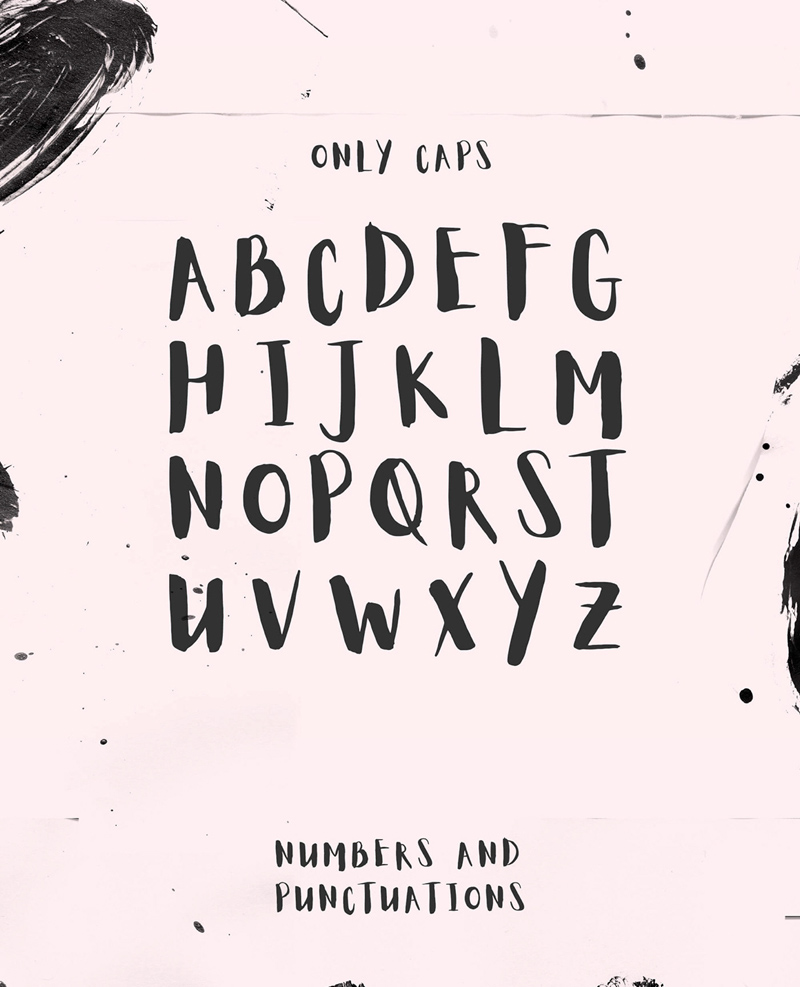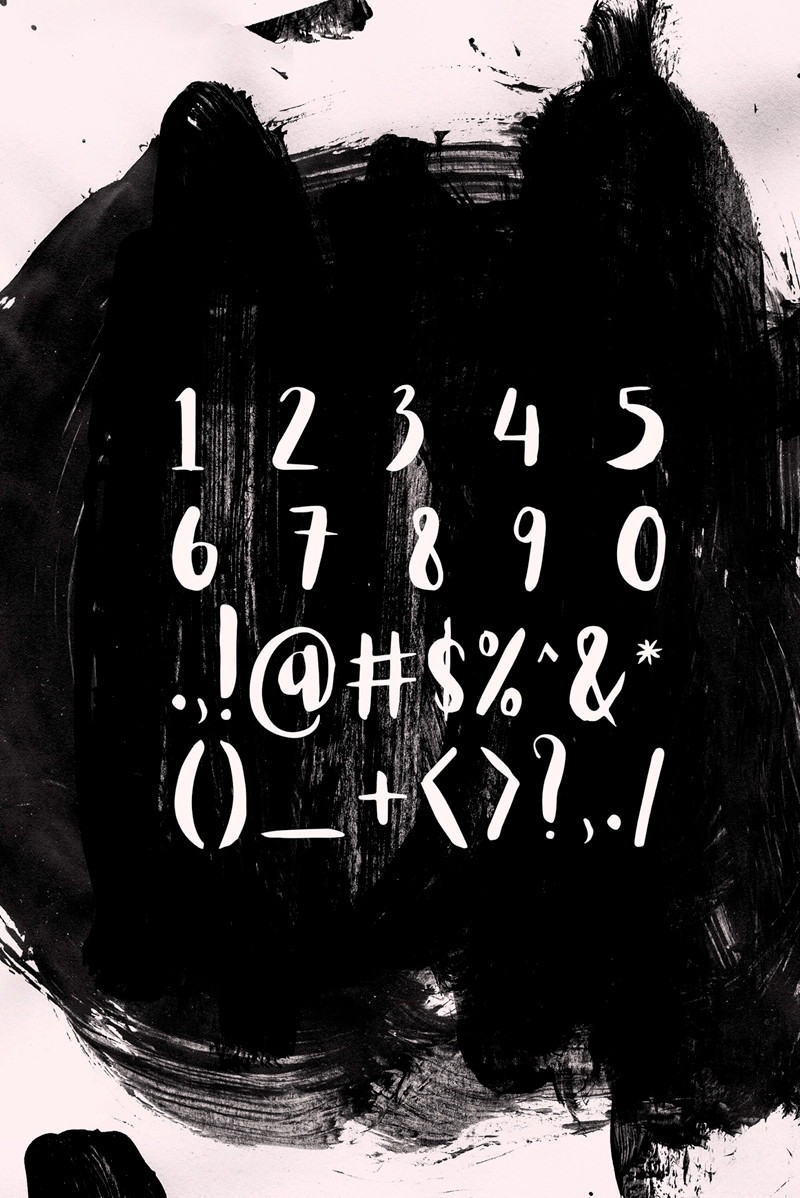
Aloja Font – Free Handwritten Typeface
This nice Aloja font is a handwritten typeface that was designed and released by KRISIJANIS MEZULIS. I hope you enjoy!
Aloja is a font that was designed for special usage – Big titles, events, posters, invitations. Is is easy to read and features a fresh and easy feel